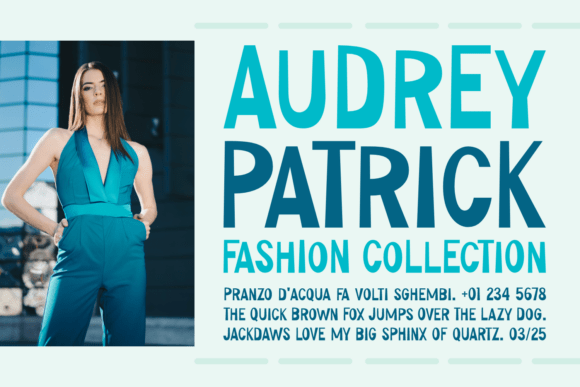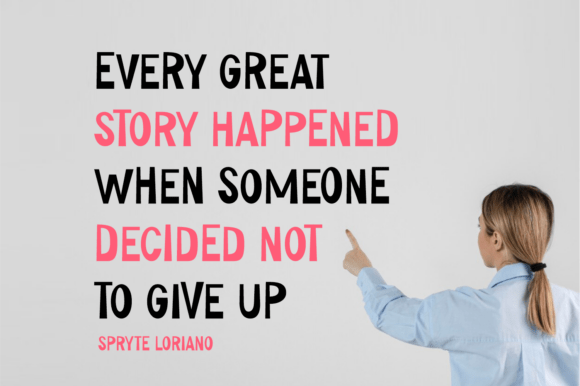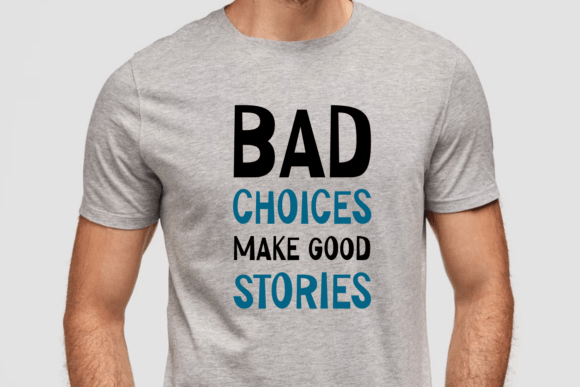
Introduction to Great Story Font
β€œGreat Story Font” is a delightful and fancy display typeface designed to bring a touch of playful whimsy to your projects.
With its carefully crafted variations in weight and width, this font maintains a surprising level of readability and versatility, making it more than just a decorative element Its unique character shines through in its expressive forms, lending a sense of fun and approachability to any design.
Key Features of Great Story Font
Why Choose Great Story Font?
Great Story Font offers exceptional quality and versatility, making it a valuable addition to your design toolkit. Whether you’re creating for personal projects or commercial use, Great Story Font delivers professional results.